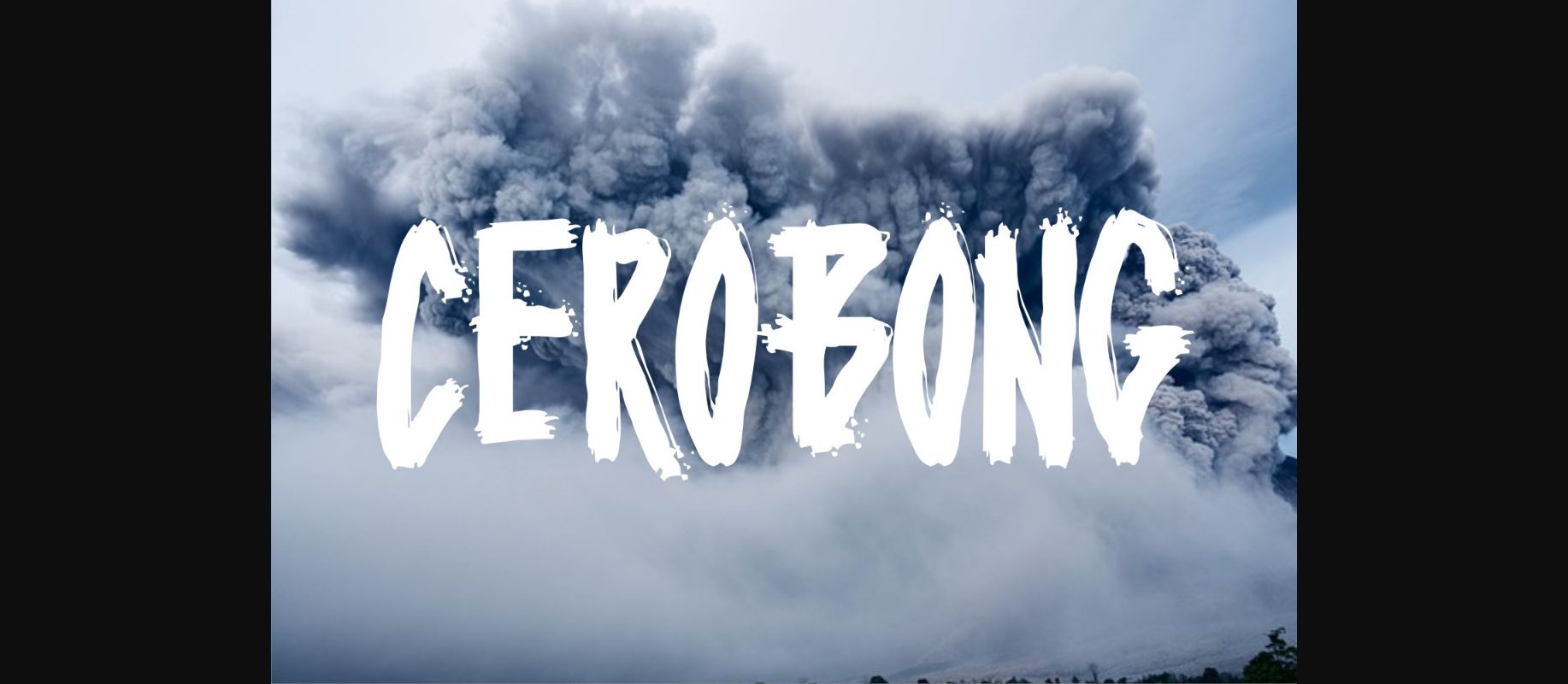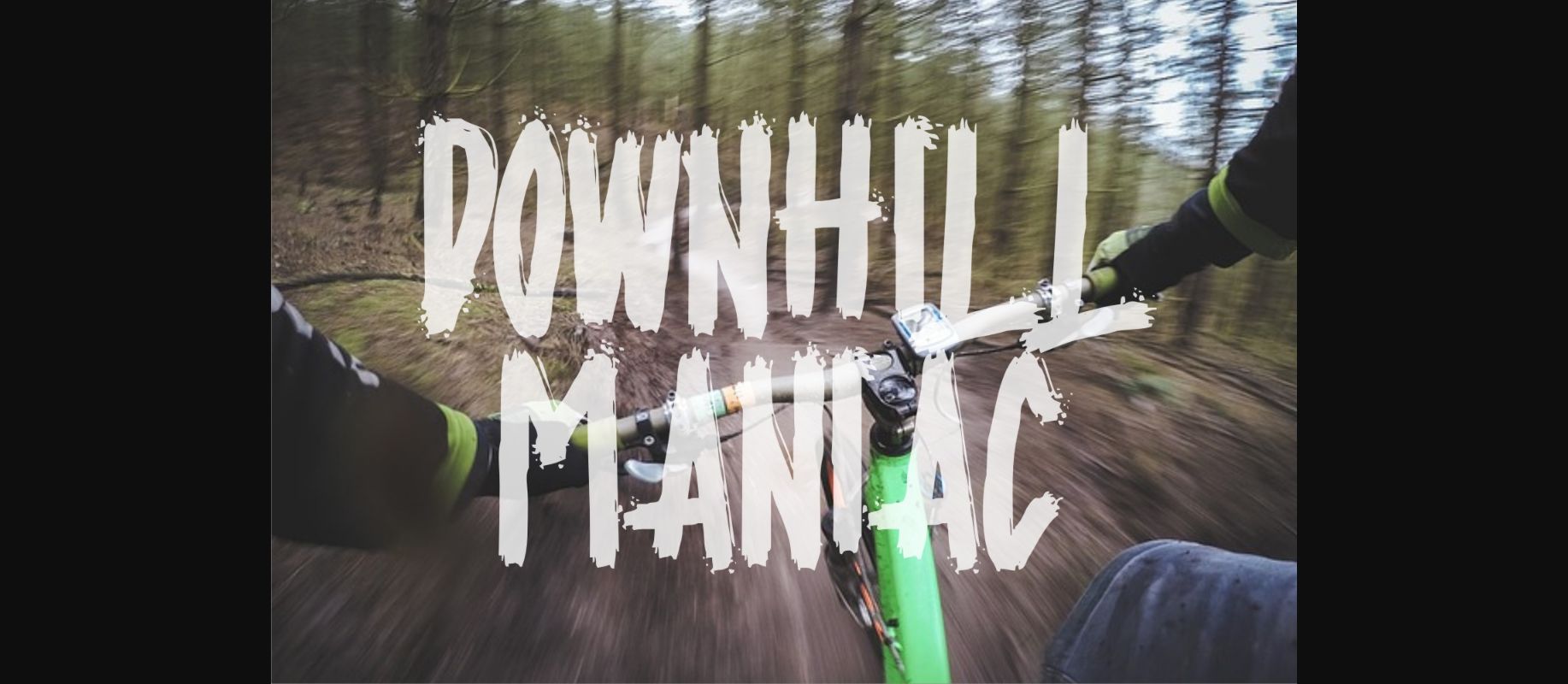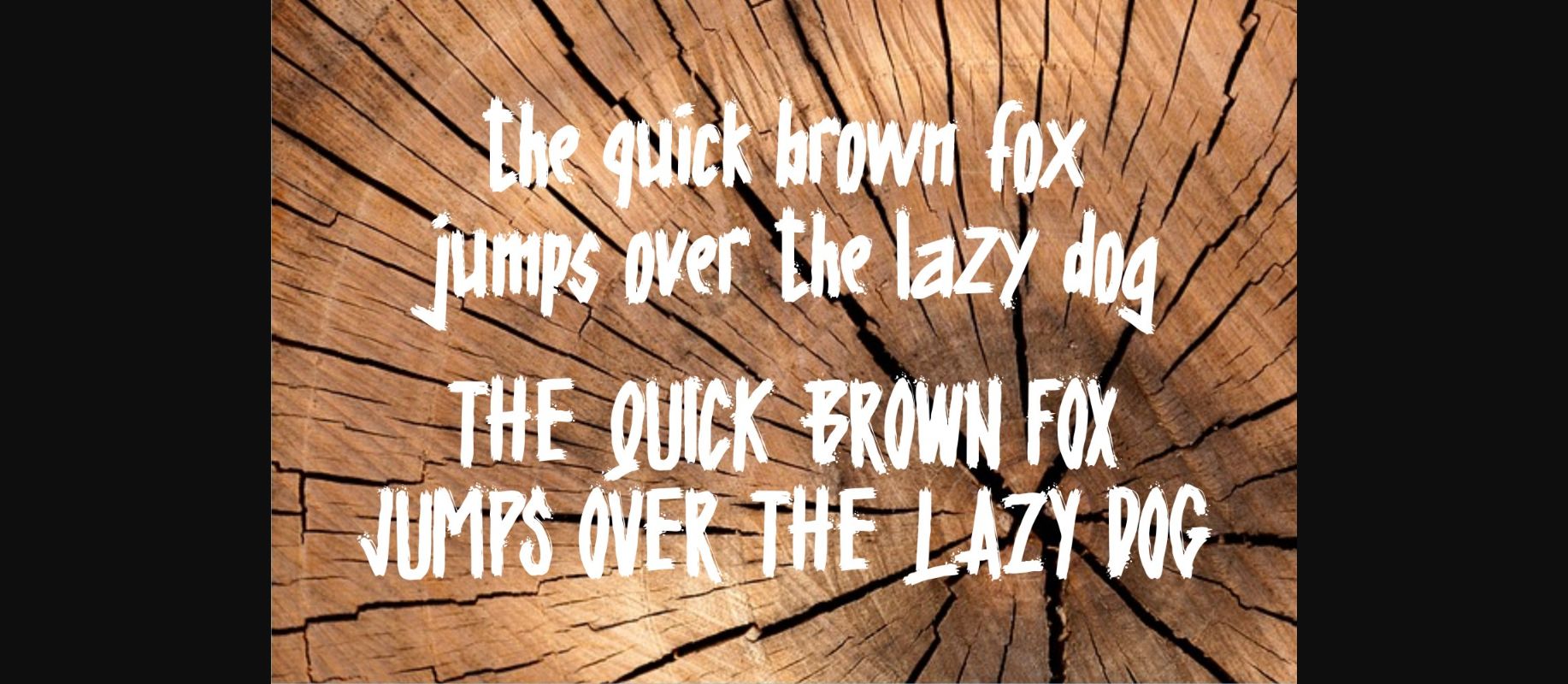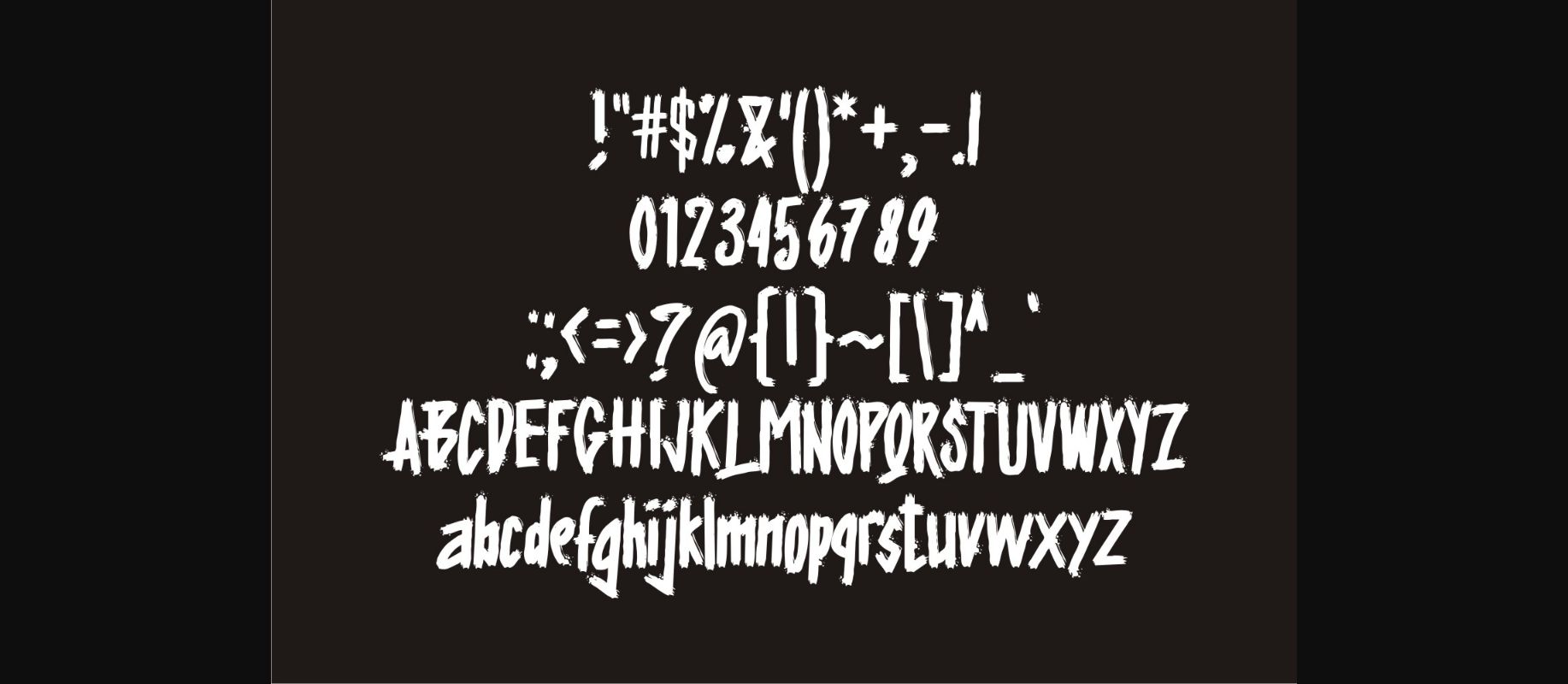
Cerobong Font
About Cerobong Font
Cerobong is a handbrushed and rustic font, perfect for displays and outdoorsy styled designs. This bold and hip font set is a great decorative brush font to add some character to your designs.